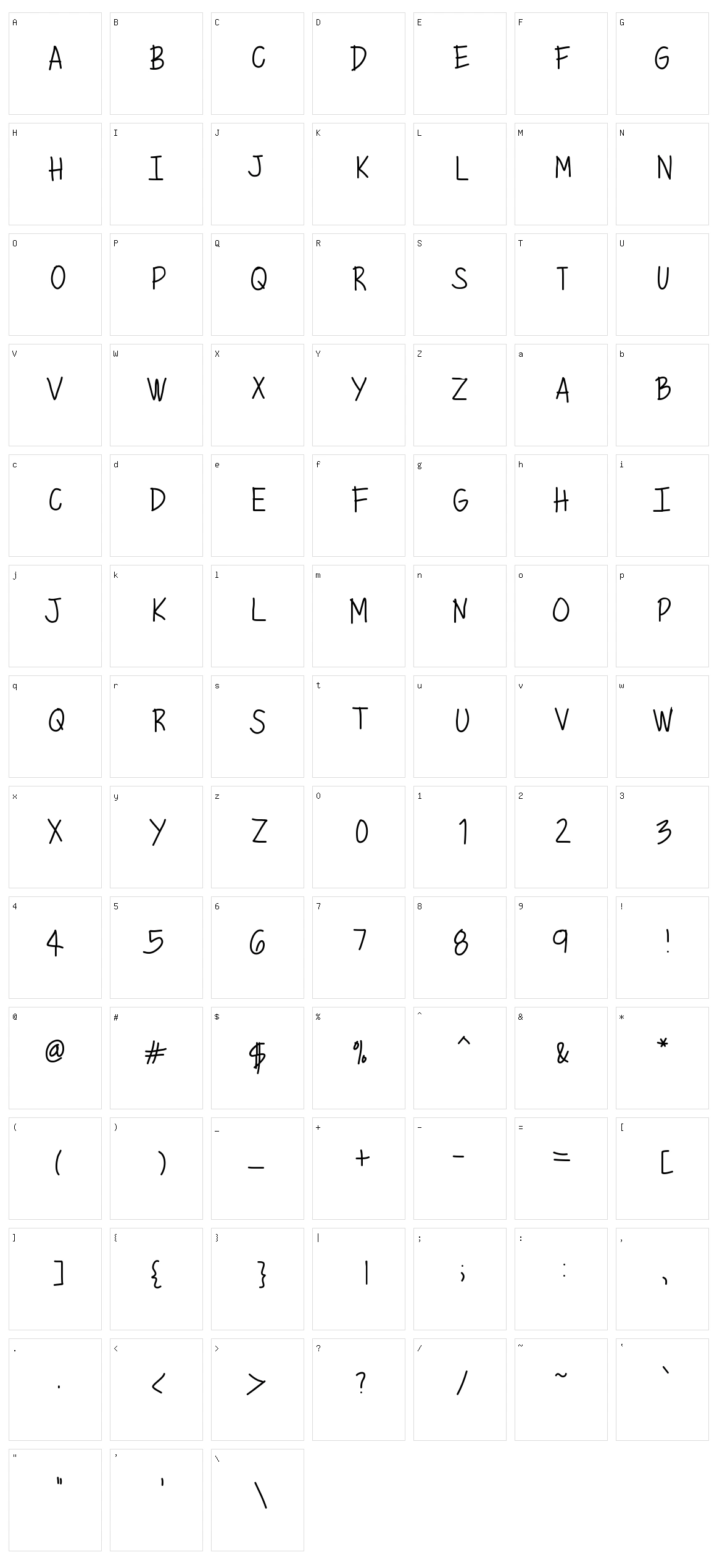
The free font Mix Mini Caps is carefully designed by Mix Fonts, showcasing a thoughtful balance of creativity and usability and falls under the Script font style. When you download the ZIP file, it contains only 73.85 KB of font files, making it lightweight and quick to download. Please review the license details below to understand permitted usage and distribution rights. If license information is not available, we recommend using this font for personal projects only or contacting the author directly for commercial usage permissions.